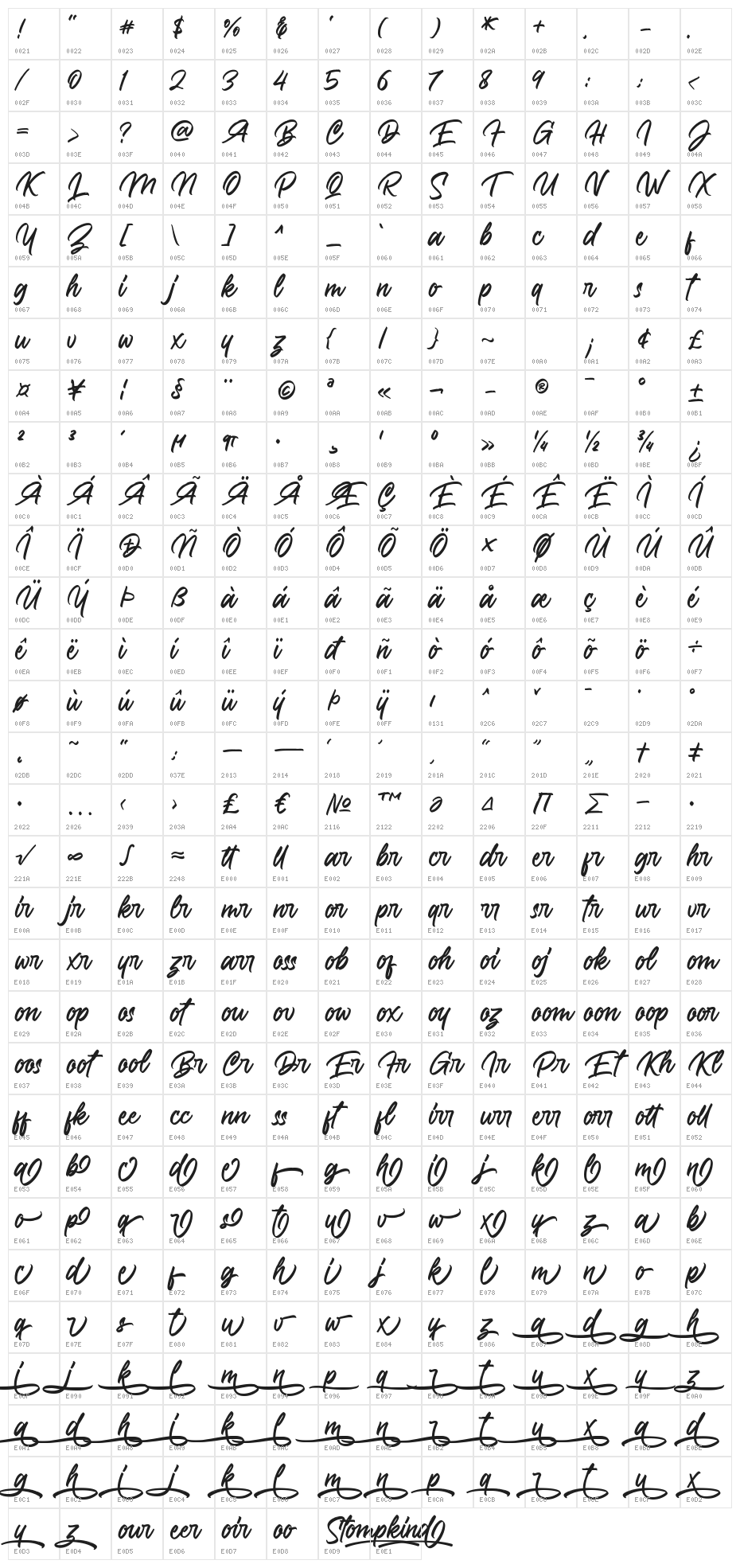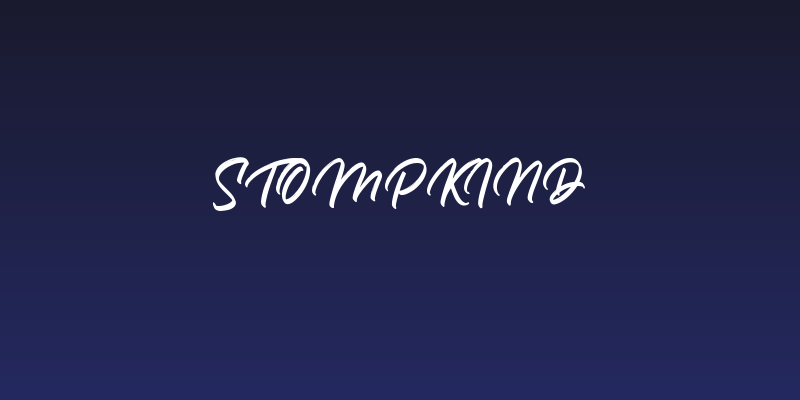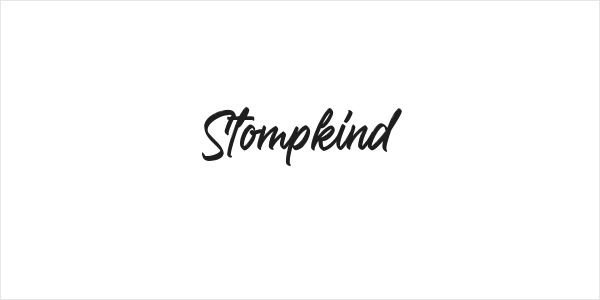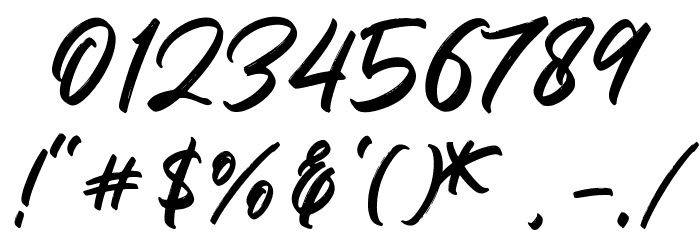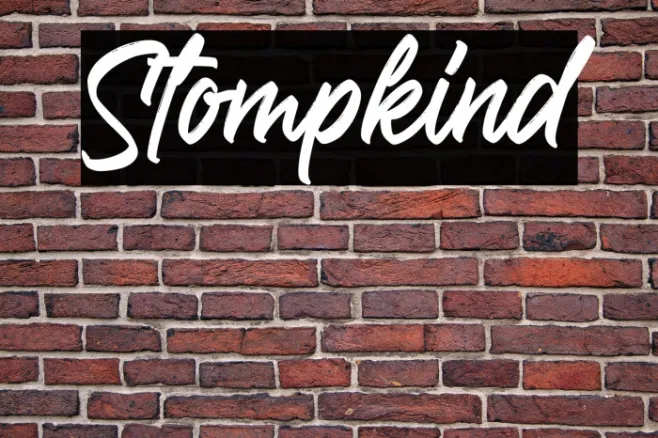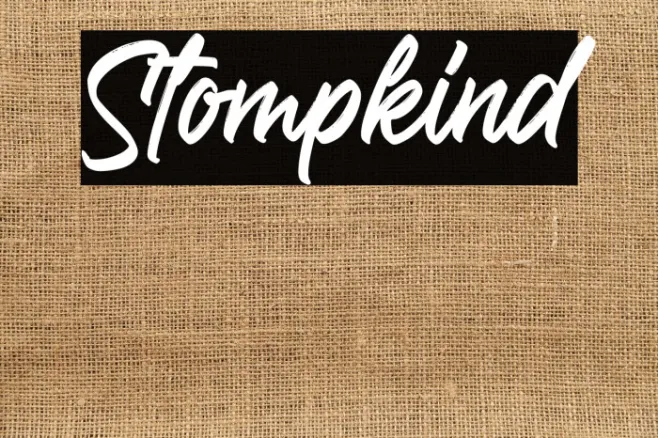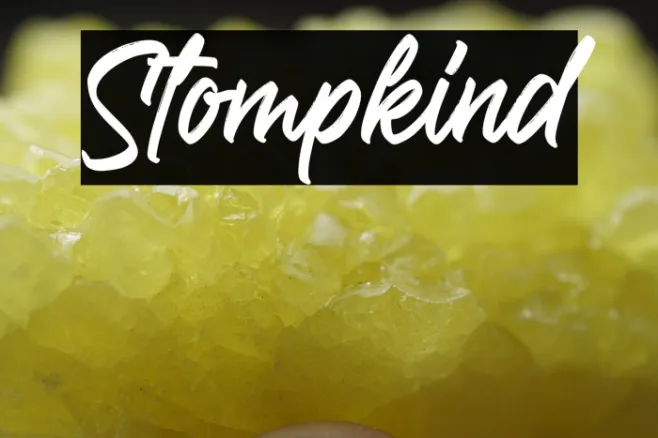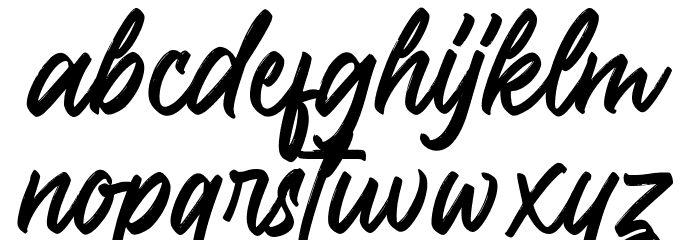
Stompkind Font
Stompkind Description
This font exudes a lively and energetic vibe with its bold, cursive style. The letters are connected in a fluid manner, reminiscent of traditional calligraphy but with a modern twist. The strokes are thick and expressive, giving each character a sense of movement and dynamism. The uppercase letters maintain a consistent height, while the lowercase letters vary slightly, adding to the font's playful nature. Numbers and special characters are crafted with the same bold strokes, ensuring uniformity across all elements. This font is perfect for projects that require a personal touch or a sense of spontaneity.